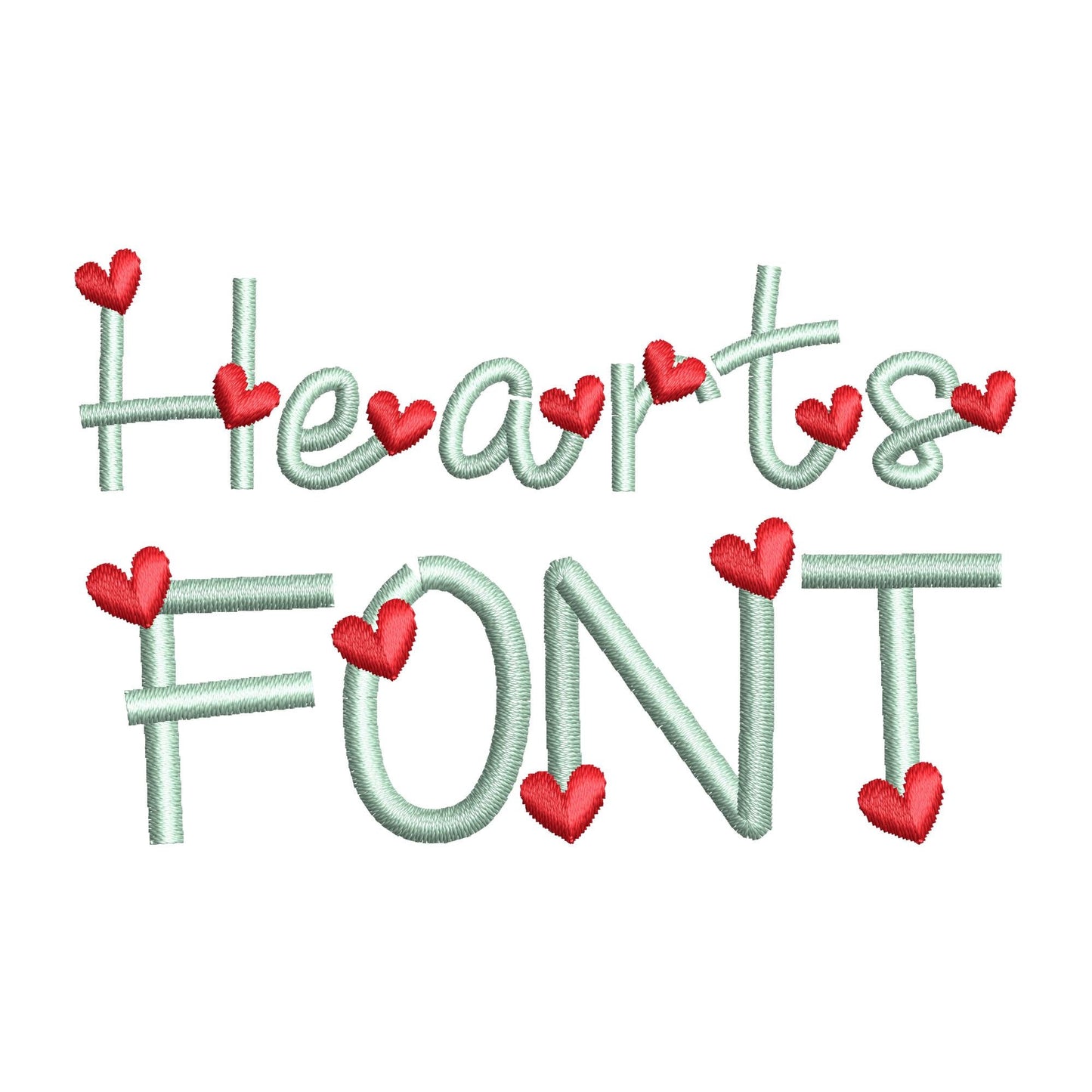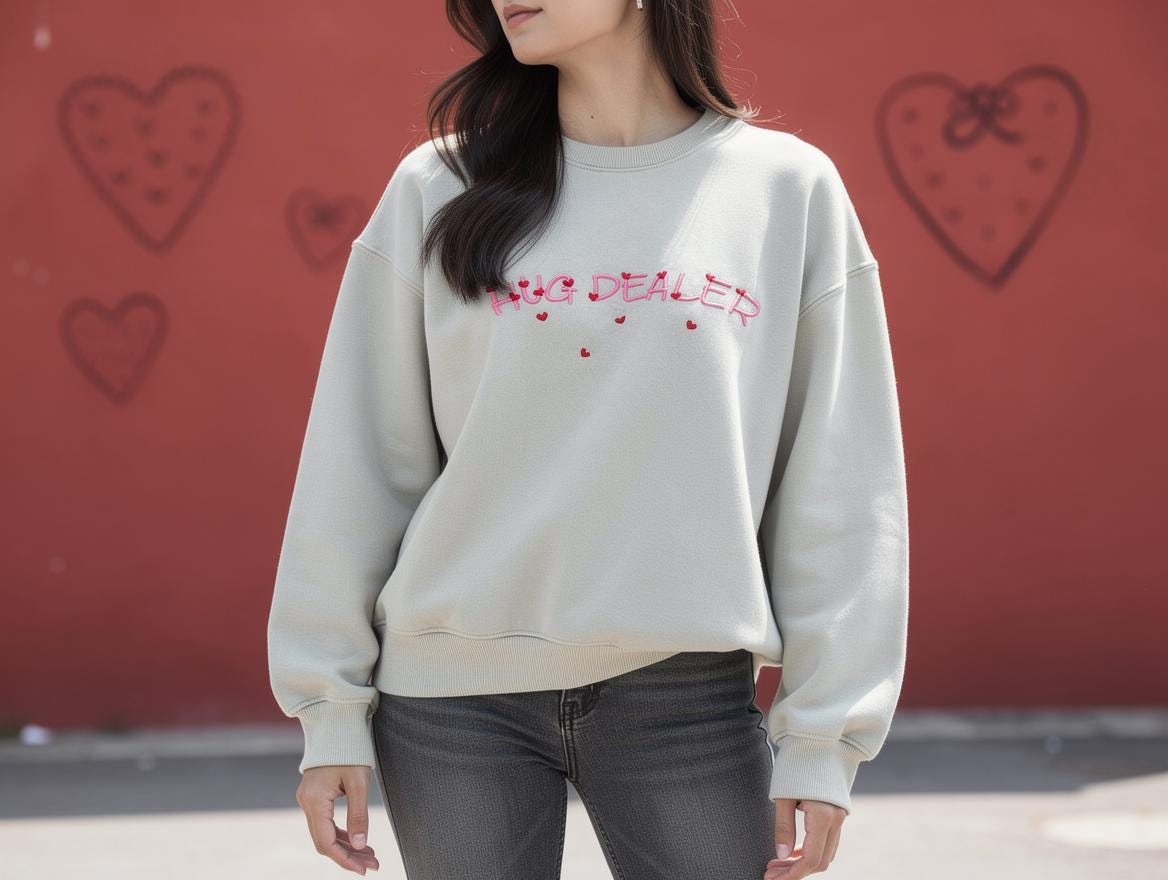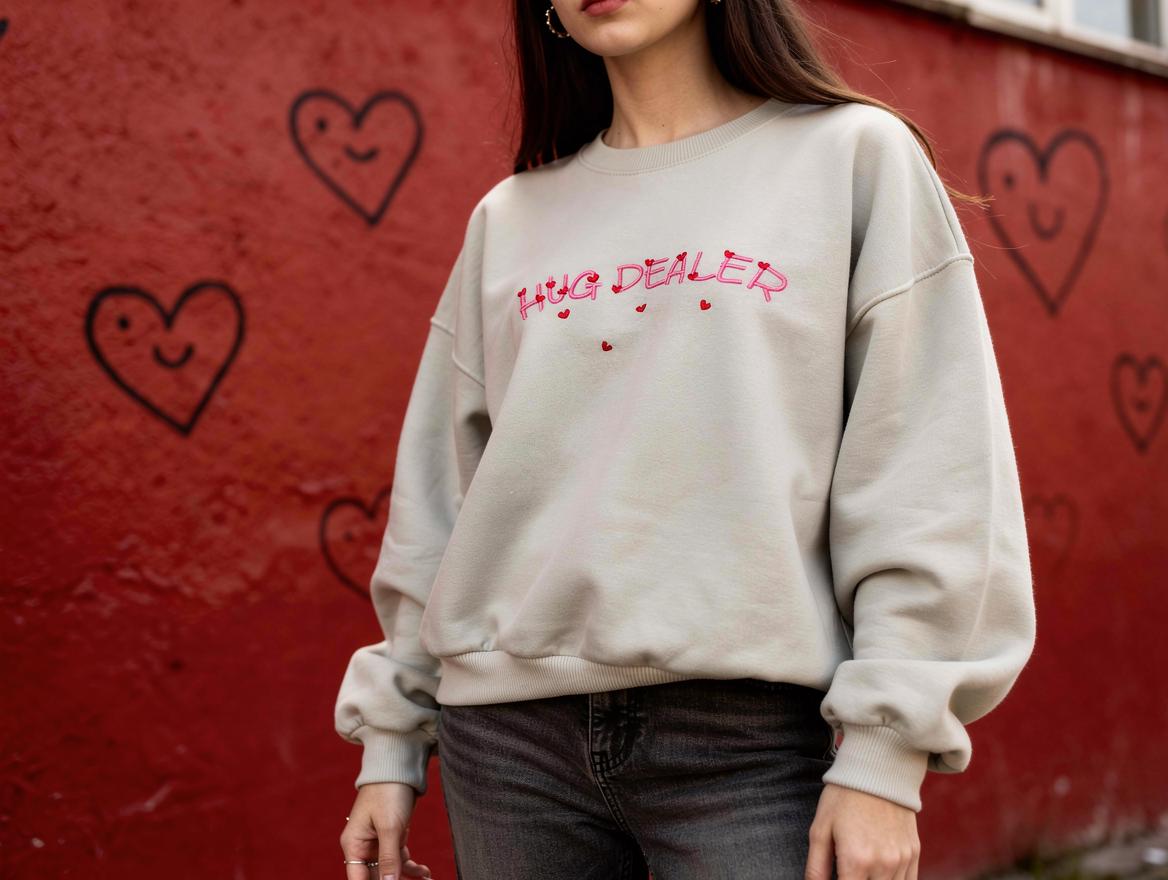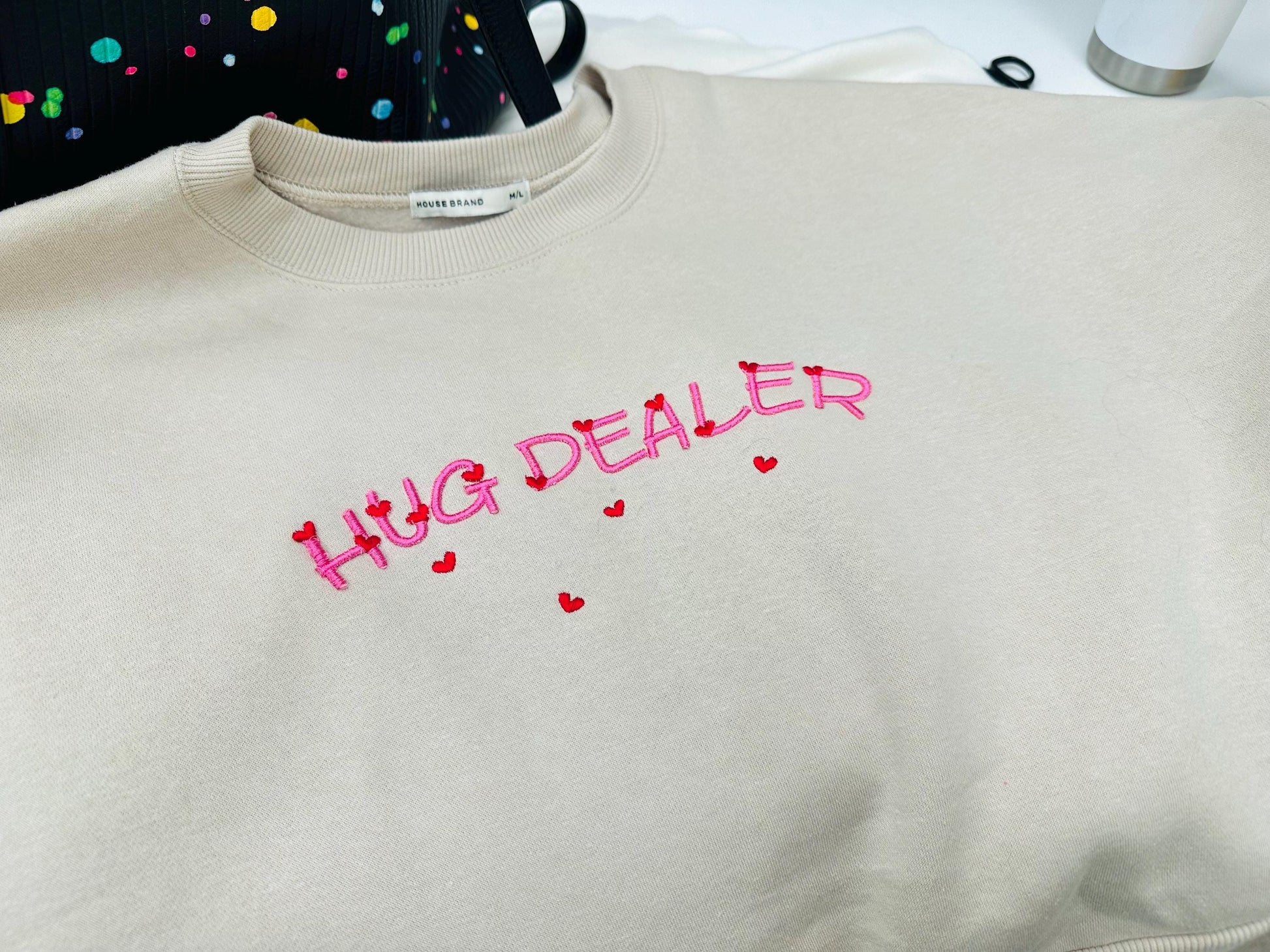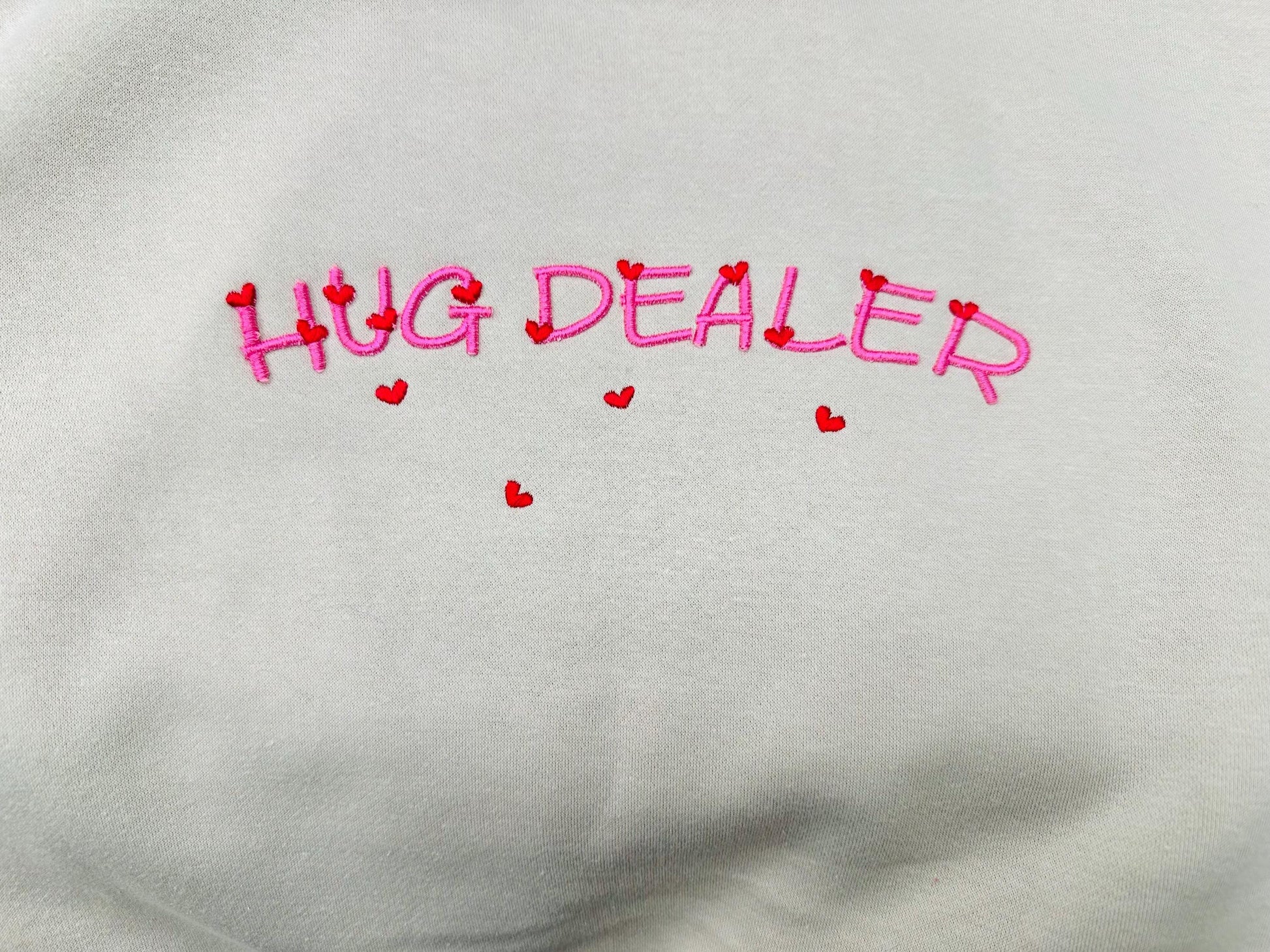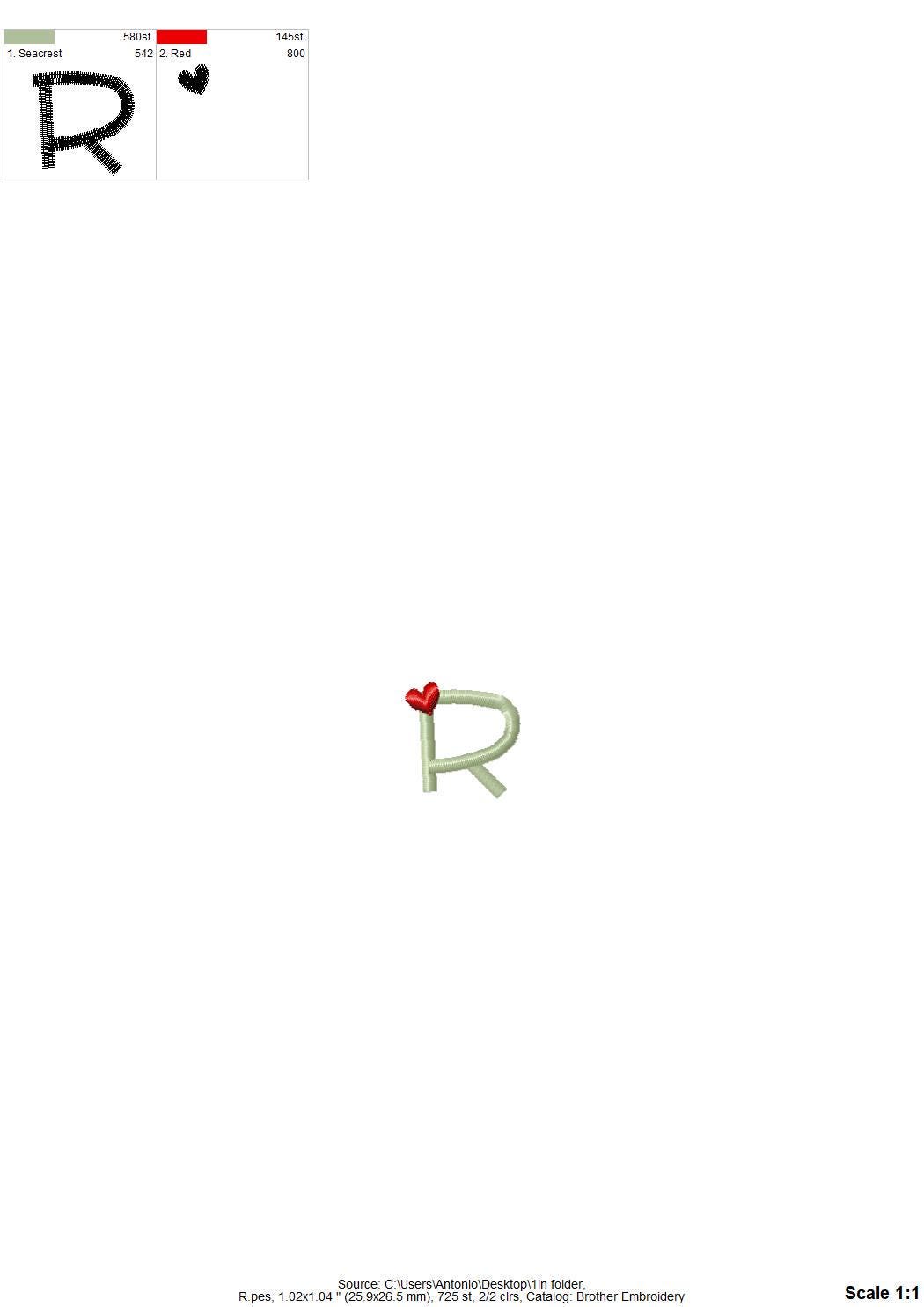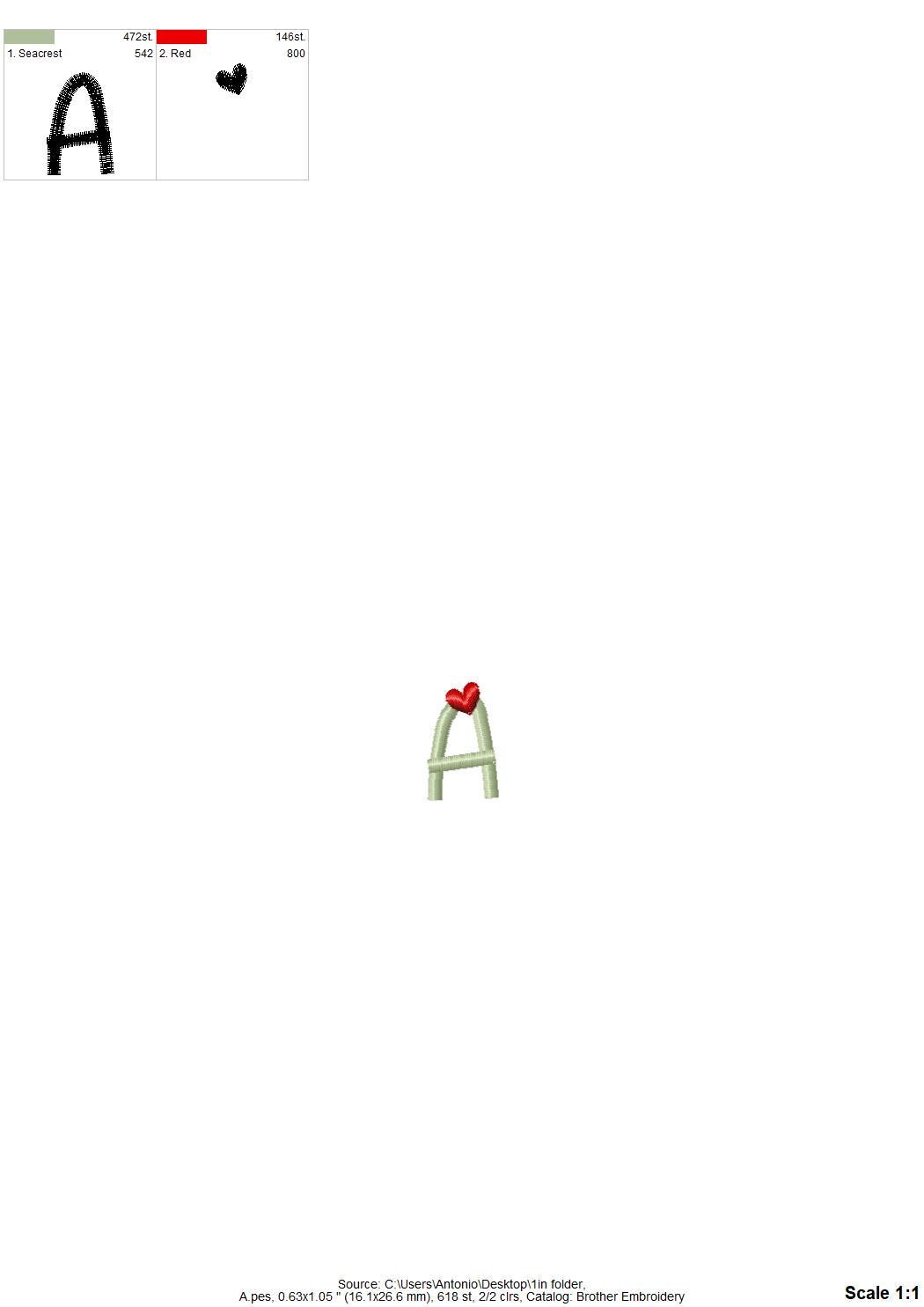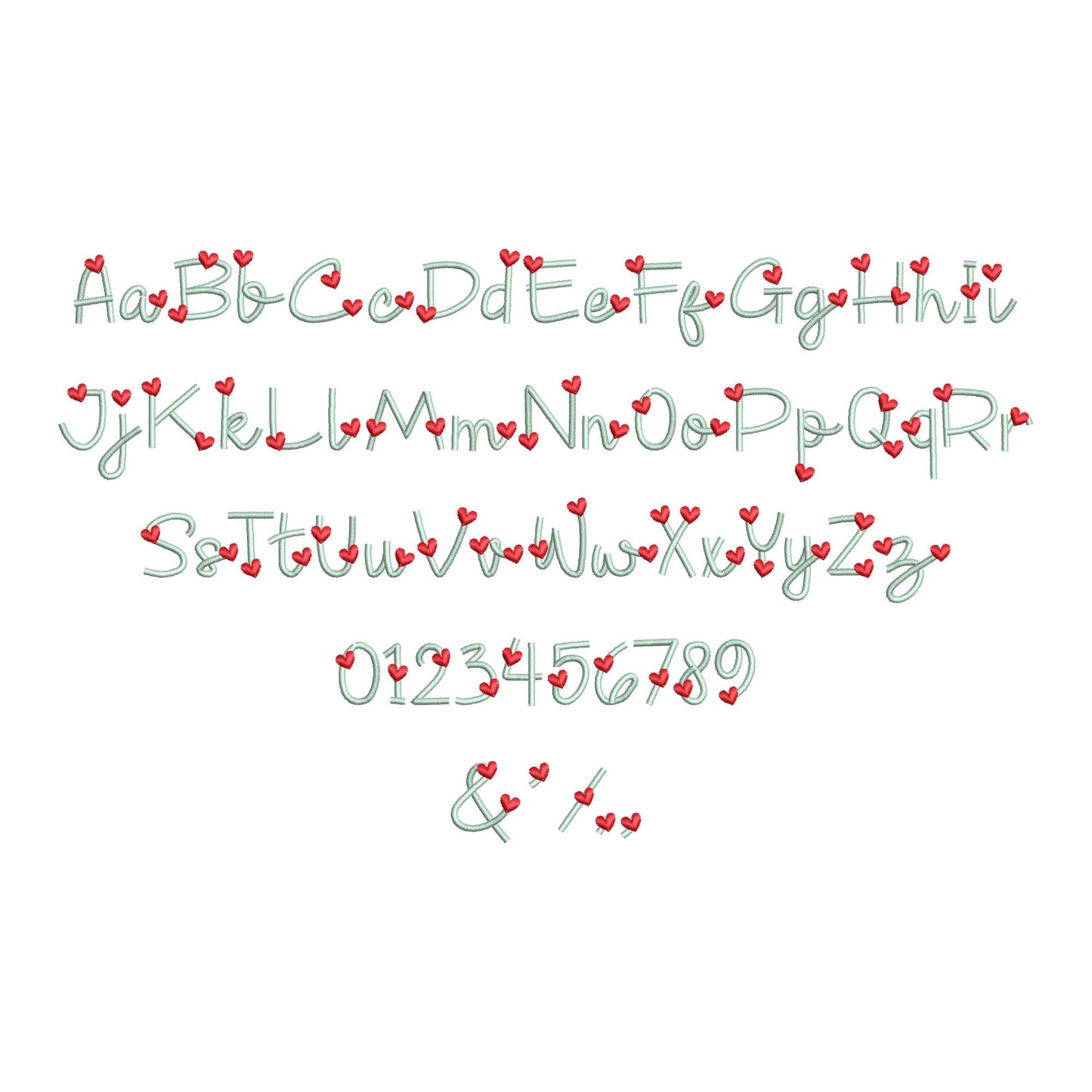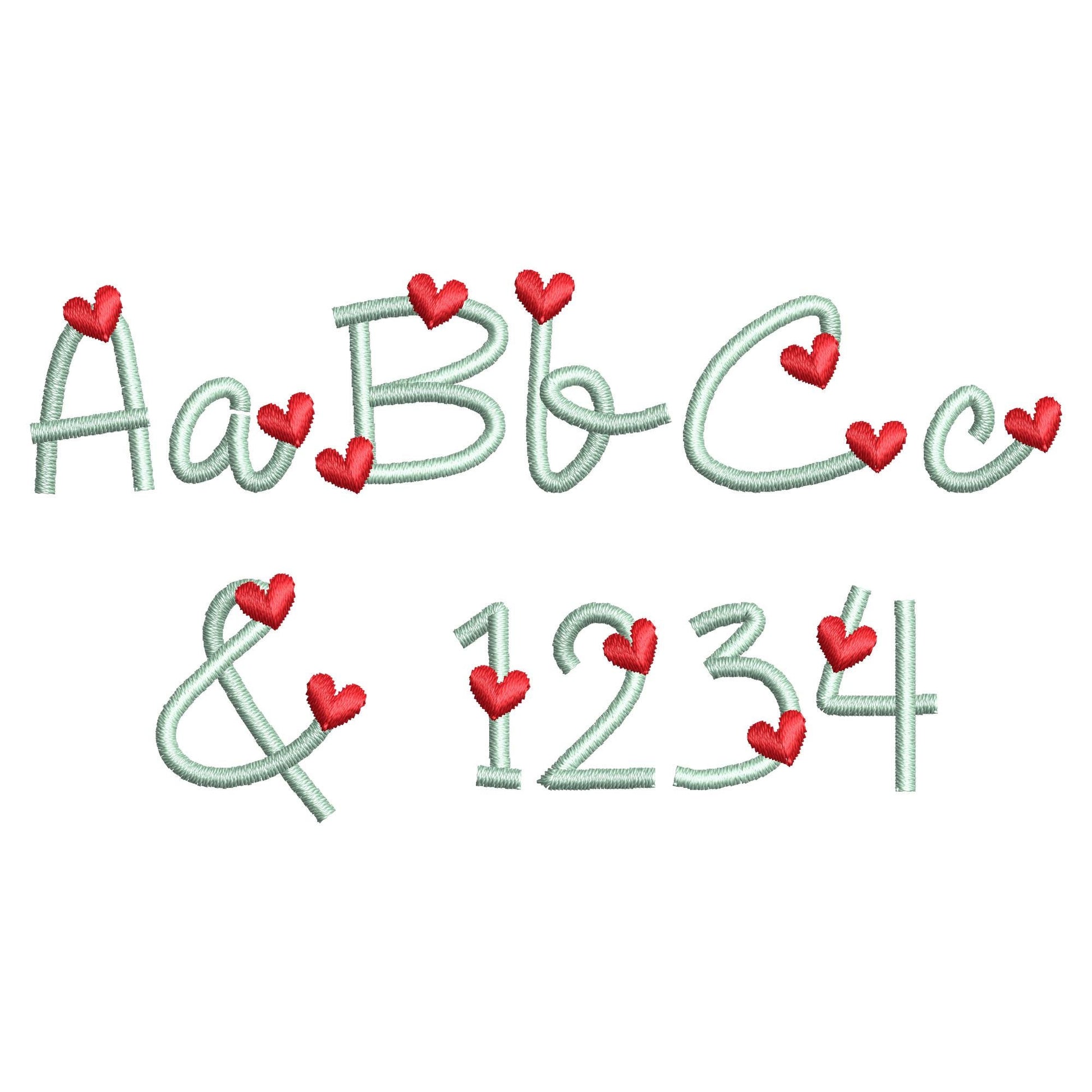
Satin Stitch Hearts Font
Or click to open the linkA handwritten Valentine script with little hearts, stitched as a satin stitch line. Sweet for tiny names, monograms and Valentine's gifts.
The letters come in four mini sizes: 0.7, 0.8, 1 and 1.3 inches. A fine satin stitch line with heart details. Includes uppercase and lowercase letters, numbers 0 to 9 and punctuation.
- Heart script font, satin stitch line